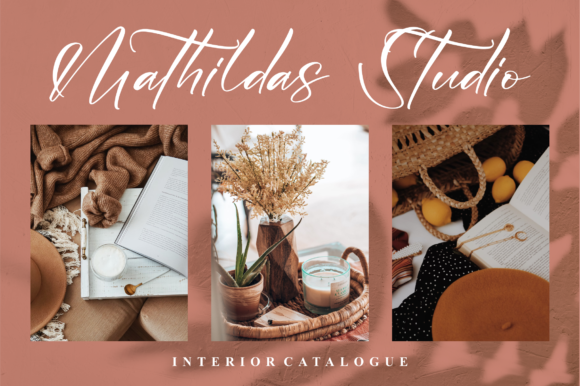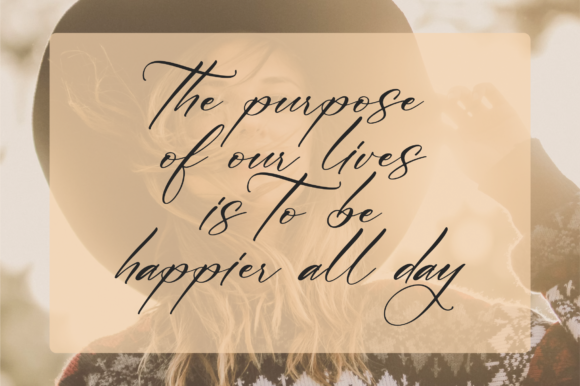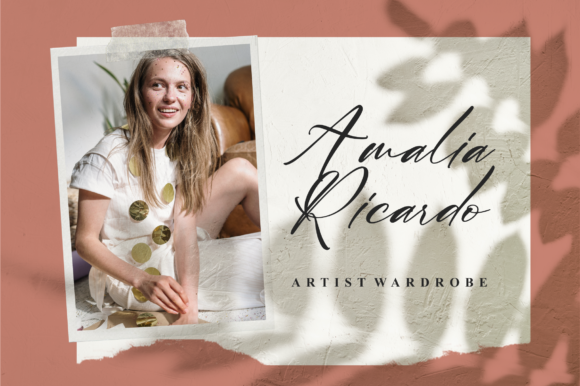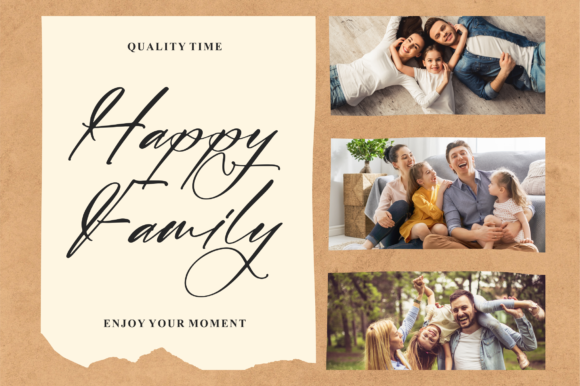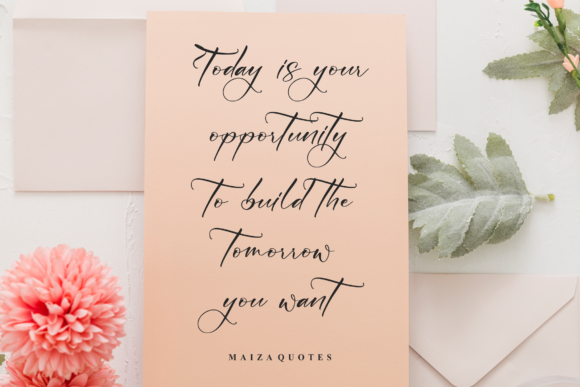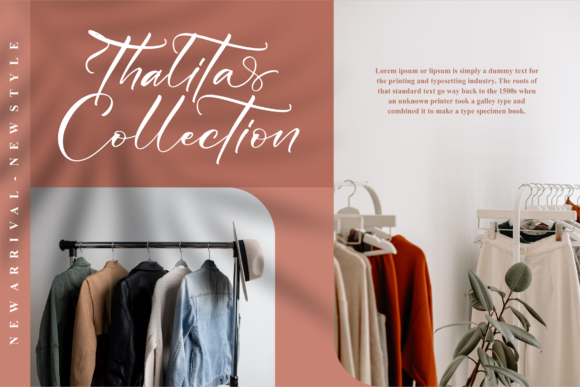
Discover the Elegance of Chanysa Hamida Font: Elevate Your Designs with Chic Script Style
In the world of typography, few fonts manage to capture the essence of elegance and sophistication as effectively as the Chanysa Hamida Font. This beautiful and chic script font has become a go-to choice for designers and crafters looking to add a touch of refinement to their projects. Whether you’re working on wedding invitations, thank you cards, quotes, greeting cards, logos, or business cards, Chanysa Hamida offers the perfect blend of delicacy and customization to make your designs stand out.
The Beauty of Chanysa Hamida Font
Chanysa Hamida Font is characterized by its delicate and flowing script style, which exudes a sense of luxury and sophistication. Its elegant strokes and beautiful swashes make it an ideal choice for designs that require a personalized touch. The font’s versatility allows it to be used across a wide range of applications, from romantic wedding invitations to stylish business cards, and everything in between.
One of the key features that sets Chanysa Hamida Font apart is its PUA (Private Use Area) encoding. This means that users can easily access all the glyphs and swashes, allowing for greater flexibility and creativity in design. With PUA encoding, you can effortlessly incorporate the font’s beautiful alternates and decorative elements into your projects, ensuring a unique and customized look.
Chanysa Hamida Font is a dream come true for designers and crafters who want to add a touch of elegance to their work. The font’s ease of use and versatility make it an excellent choice for a wide range of projects, including:
- Wedding Invitations: Create stunning wedding invitations that set the tone for a beautiful and memorable day.
- Thank You Cards: Express your gratitude with stylish and heartfelt thank you cards.
- Quotes: Add a touch of sophistication to your quotes and sayings.
- Greeting Cards: Create beautiful greeting cards for any occasion.
- Logos: Elevate your brand with a custom logo that exudes elegance and refinement.
- Business Cards: Make a lasting impression with stylish and professional business cards.
Tips for Using Chanysa Hamida Font
To get the most out of Chanysa Hamida Font, here are a few tips to keep in mind:
- Experiment with Swashes: Take advantage of the font’s beautiful swashes to add a touch of elegance to your designs.
- Play with Font Sizes: Experiment with different font sizes to create visual interest and hierarchy in your designs.
- Combine with Other Fonts: Pair Chanysa Hamida Font with other fonts to create a unique and visually appealing combination.
In conclusion, Chanysa Hamida Font is a beautiful and chic script font that offers a world of creative possibilities for designers and crafters. Its elegant style, versatility, and PUA encoding make it an excellent choice for a wide range of projects. Whether you’re looking to create stunning wedding invitations, stylish business cards, or heartfelt thank you cards, Chanysa Hamida Font is sure to elevate your designs and leave a lasting impression.